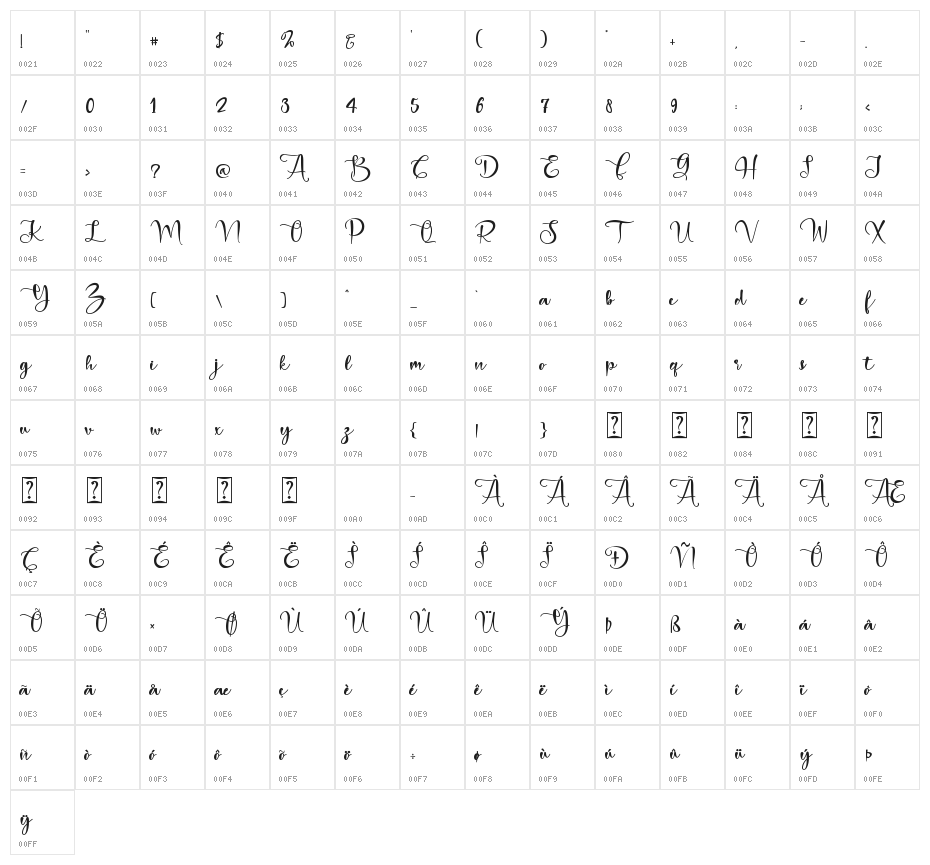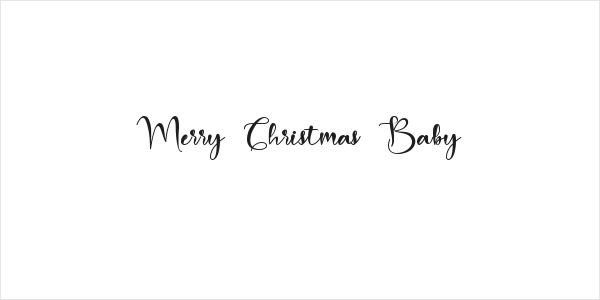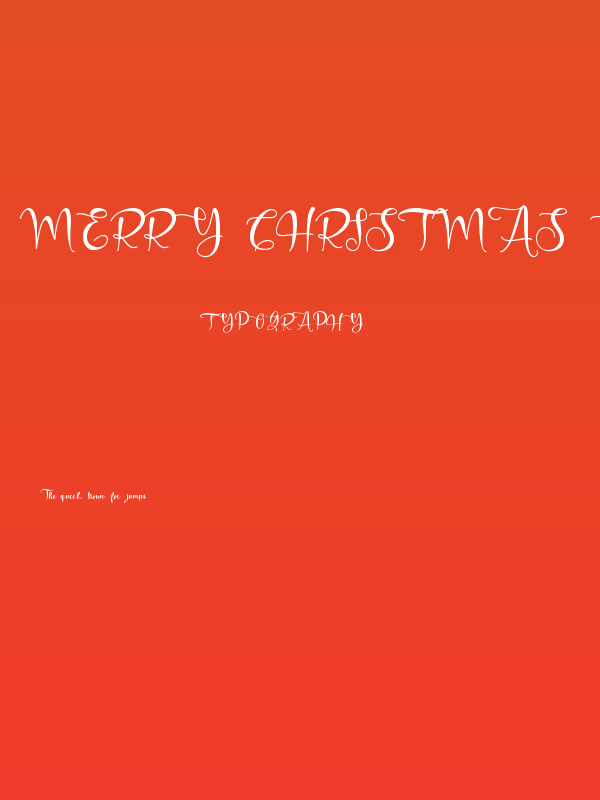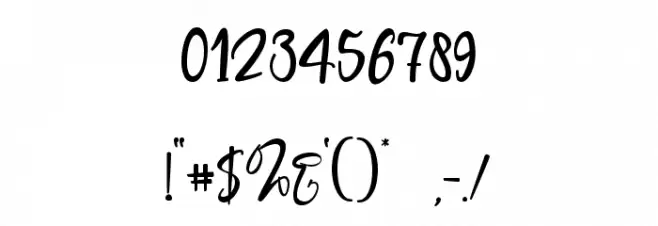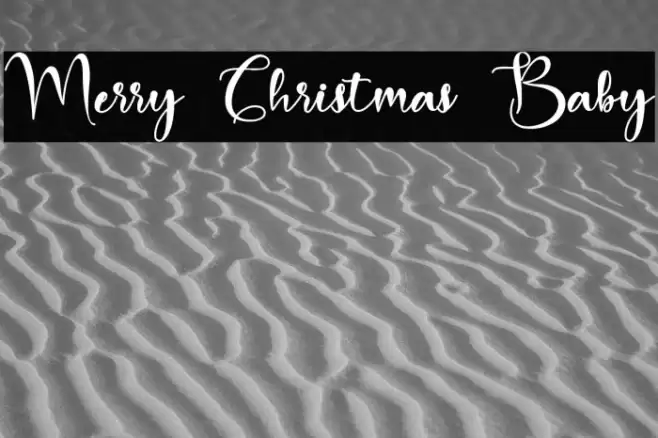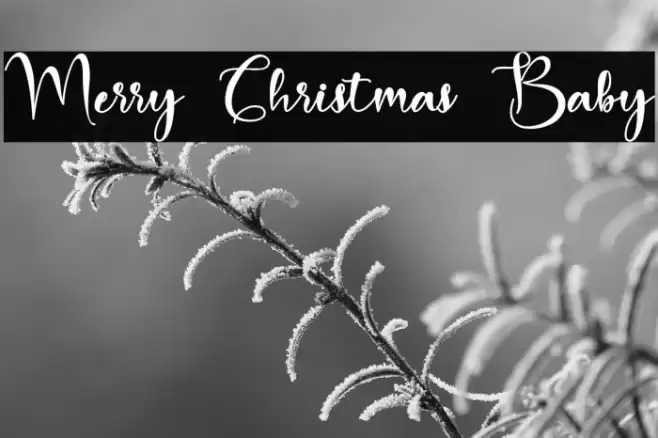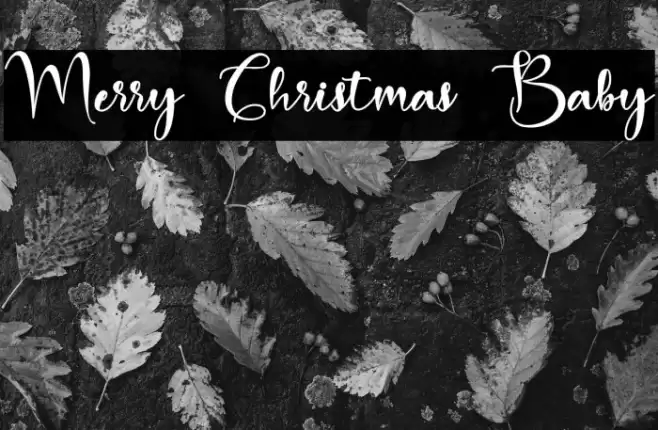
Merry Christmas Baby Font
This elegant script font features a flowing, cursive style with intricate loops and swashes, giving it a sophisticated and decorative appearance. The uppercase letters are particularly ornate, with elaborate flourishes that add a touch of elegance and charm. The lowercase letters maintain a consistent flow, enhancing readability while retaining the font's artistic flair. The numerals and special characters complement the overall design, making it versatile for various uses. This font is ideal for projects that require a touch of elegance and sophistication, such as wedding invitations, greeting cards, and branding materials.
| Proposed Projects | Wedding invitations, greeting cards, branding materials, elegant posters. |